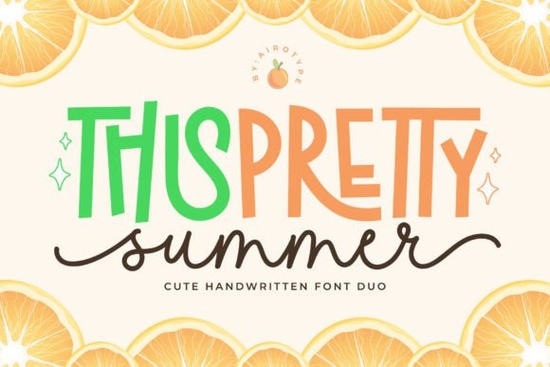
If you're looking for a friendly, summery typeface that works equally well on wedding invites, kids’ birthday shirts, or printable stickers, the Pretty Summer Font is a thoughtful choice. It’s not overly decorative or hard to read just light, cheerful, and intentionally playful. Designed as a font duo (one script and one clean sans-serif companion), it gives you flexibility without needing extra design tools or workarounds.
What makes Pretty Summer Font easy to use?
First, it’s PUA encoded which means all the alternate characters, swashes, and ligatures show up right where you expect them in your design software (like Adobe Illustrator, Canva, or Cricut Design Space). No digging through character maps or installing extras. Just install the fonts, open your program, and start typing. The script version has gentle bounce and soft curves; the sans-serif keeps things legible and balanced when used side-by-side or layered.
You’ll find it especially handy if you’re making designs for seasonal markets, small-batch sublimation projects, or digital downloads on Etsy. Because it’s not too “cute” to the point of being childish and not so minimal that it feels cold it bridges styles well. Think: a baby shower banner with hand-drawn elements, a beach-themed t-shirt for a family vacation, or even a boutique café menu board with a relaxed summer vibe.
Where does it fit alongside other popular fonts?
It’s different from bold display fonts like the grunge-style options, which lean into texture and edge. And unlike athletic or collegiate fonts say, something like the bold, structured lettering used for team merch Pretty Summer keeps things soft and approachable. If you’ve used Oldport Script before, you’ll notice Pretty Summer is lighter and more open, with less contrast between thick and thin strokes. And while Sunny Muff shares some warmth, Pretty Summer has more built-in alternates and smoother spacing out of the box.
For crafters who cut vinyl or print heat-transfer sheets, the clean outlines and generous letter spacing help reduce weeding time and improve registration. Print-on-demand sellers also appreciate how well it scales whether it’s a tiny tagline on a 4×6 postcard or blown up across a tote bag.
Real uses not just theory
We’ve seen this font used in ways that go beyond the obvious:
- Wedding stationery: paired with muted pastel palettes and simple line art especially for “save the date” cards or welcome signs at outdoor venues.
- Kid-friendly crafts: printed on iron-on patches for camp T-shirts or traced onto wooden ornaments with a Cricut.
- Digital planners & stickers: the sans-serif companion works great for headers inside Notion templates or as labels in printable sticker sheets.
- Small business branding: a local ice cream shop used it for their weekly flavor board pairing the script for the flavor name (“Lemon Sorbet”) and the sans for the description (“tart, refreshing, made daily”).
It’s not meant for long paragraphs or body text but then again, most display fonts aren’t. That’s why having both versions in one package helps you stay consistent across touchpoints without hunting for matching pairs elsewhere.
How to get the most out of it
Try layering the script over the sans-serif in a subtle way like using the script for a main phrase and dropping the sans-serif underneath in a smaller size and lighter weight. Avoid cramming too many ligatures into one word; two or three per line usually feels more intentional than overwhelming. And if you’re exporting for web use, test readability at smaller sizes it holds up best above 24pt for headlines and 36pt+ for large-format prints.
A quick checklist before you download
- ✅ You need a friendly, warm tone not formal or industrial.
- ✅ Your project includes short phrases (not full paragraphs).
- ✅ You want built-in alternates without needing OpenType features turned on manually.
If those match up, Pretty Summer Font is likely a solid addition to your collection especially if you’ve been reaching for the same few fonts lately and want something fresh but still easy to apply.